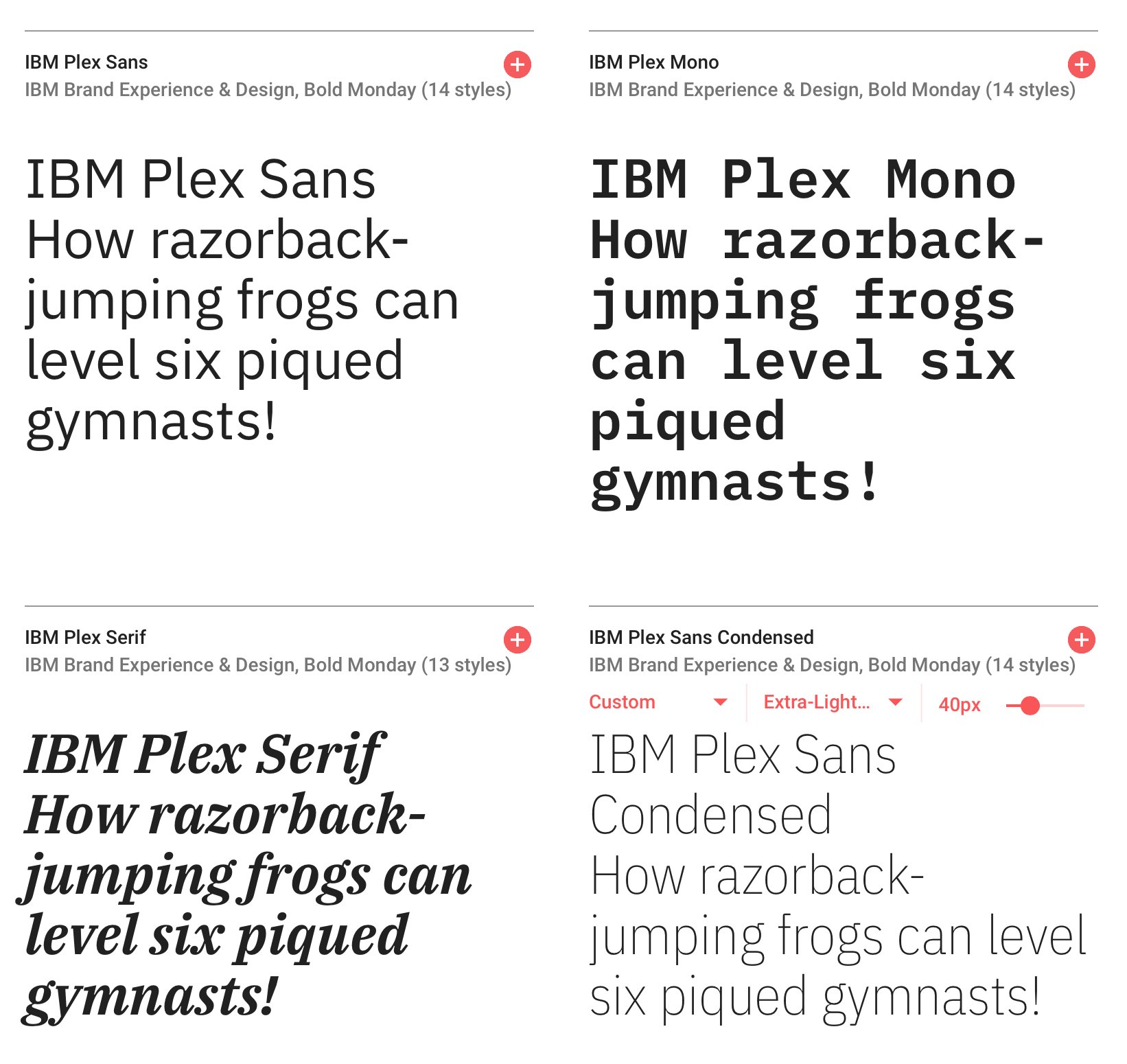
Google fonts condensed.
This collection focuses on typeface families from reputable type designers and foundries that contain multiple weights and styles.
It is designed for screens and features a condensed form of text.
You could even choose a font with a single weight if you think it s right.
Google fonts is a library of 1052 free licensed font families and apis for conveniently using the fonts via css and android.
The comprehensive set of fonts and tools used in our development is.
Google fonts is a library of 1052 free licensed font families and apis for conveniently using the fonts via css and android.
Finding attractive user friendly legible fonts for your website isn t always easy but google fonts launched in 2010 helps solve that problem having started small the directory now includes more than 600 free optimised fonts which can be added to your site just by embedding a snippet of code.
50 google fonts to use in 2021.
Although it can be clearly used as a body font it can cost some stress on eyes for long reading.
Google has been developing a font family called noto which aims to support all languages with a harmonious look and feel.
Why google fonts are important because they allow you to communicate different tones and brand personalities using typography.
These are the 40 best free web fonts available on google fonts in my humble opinion they are all open source and 100 free for commercial use.
It s a fantastic resource but with so many fonts on offer finding the ones you want to.
Available in 8 different styles merriweather is an excellent font for headings and titles.